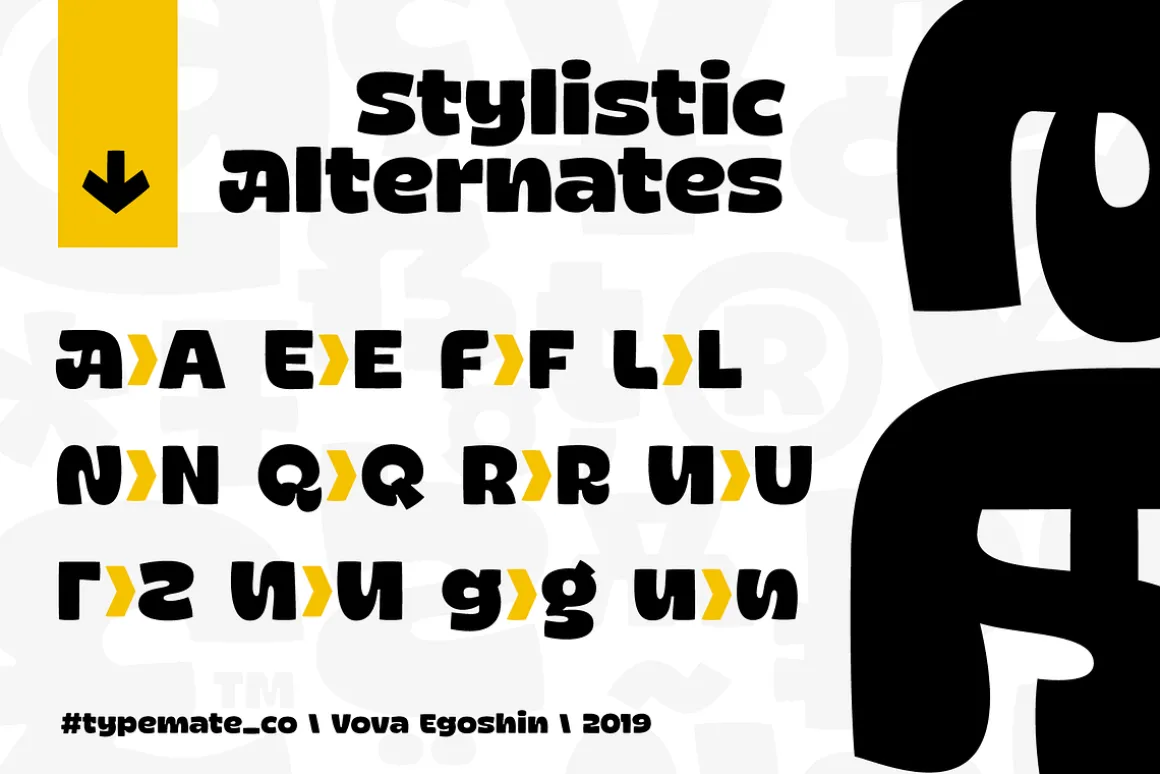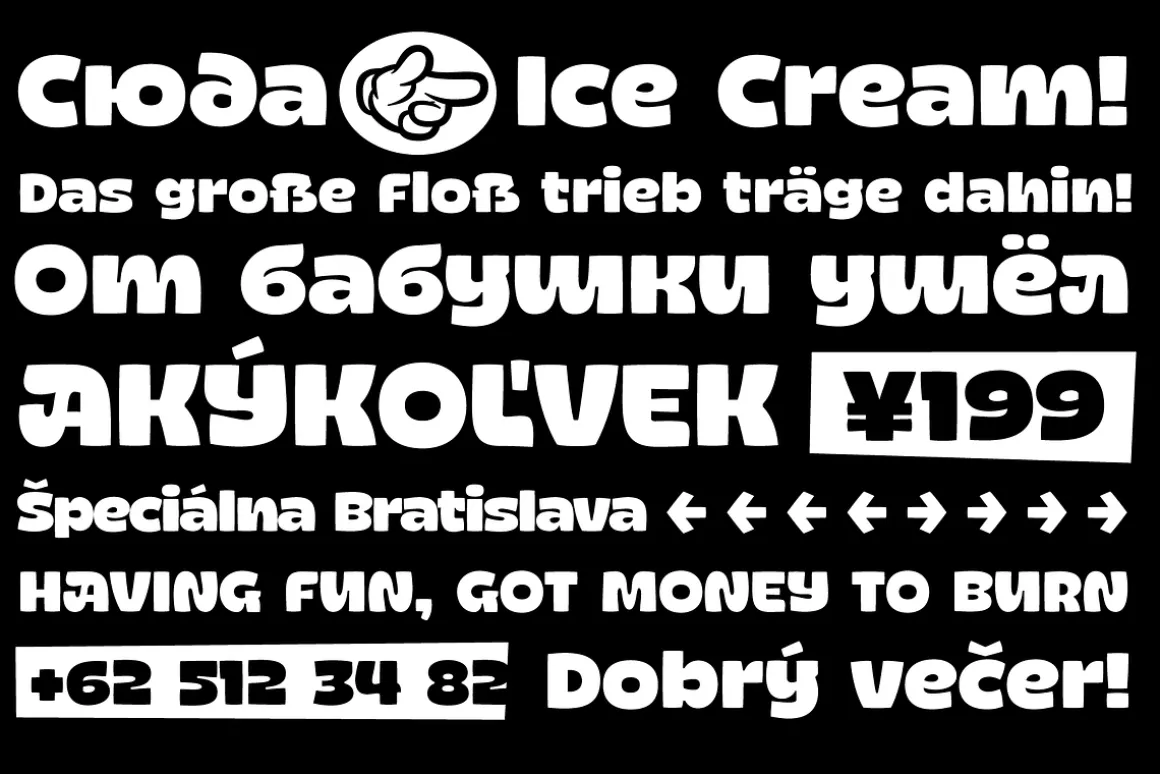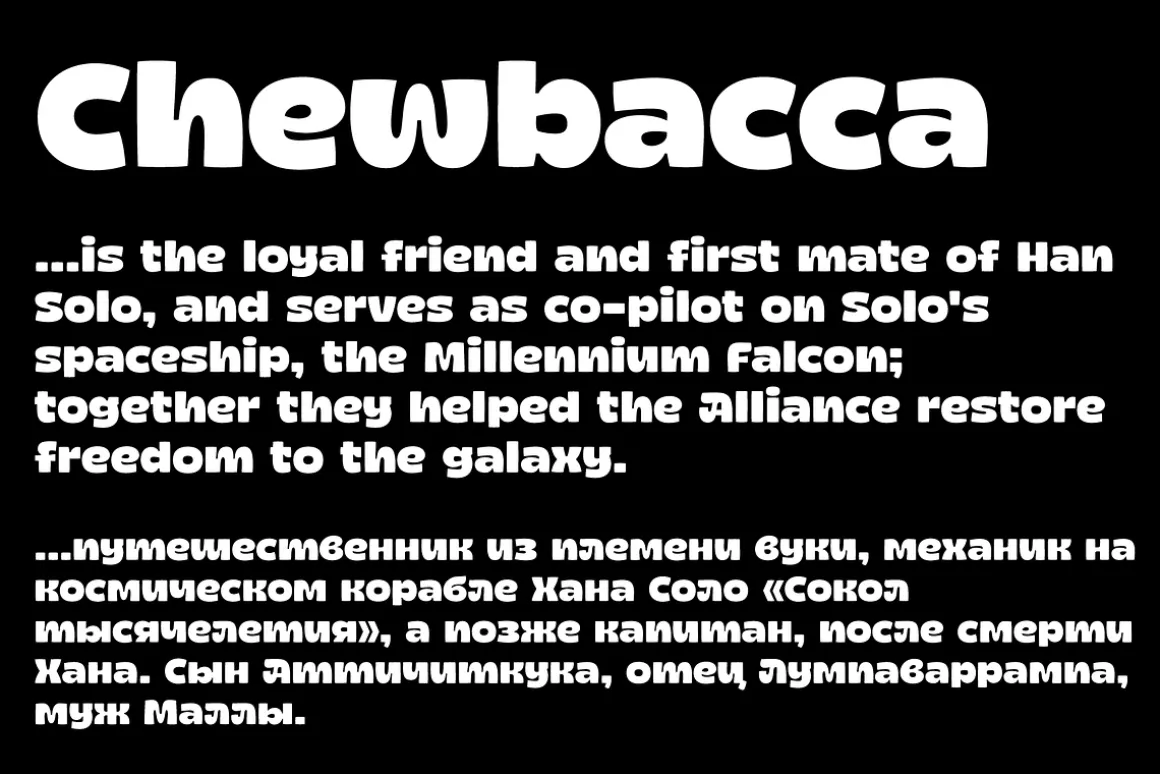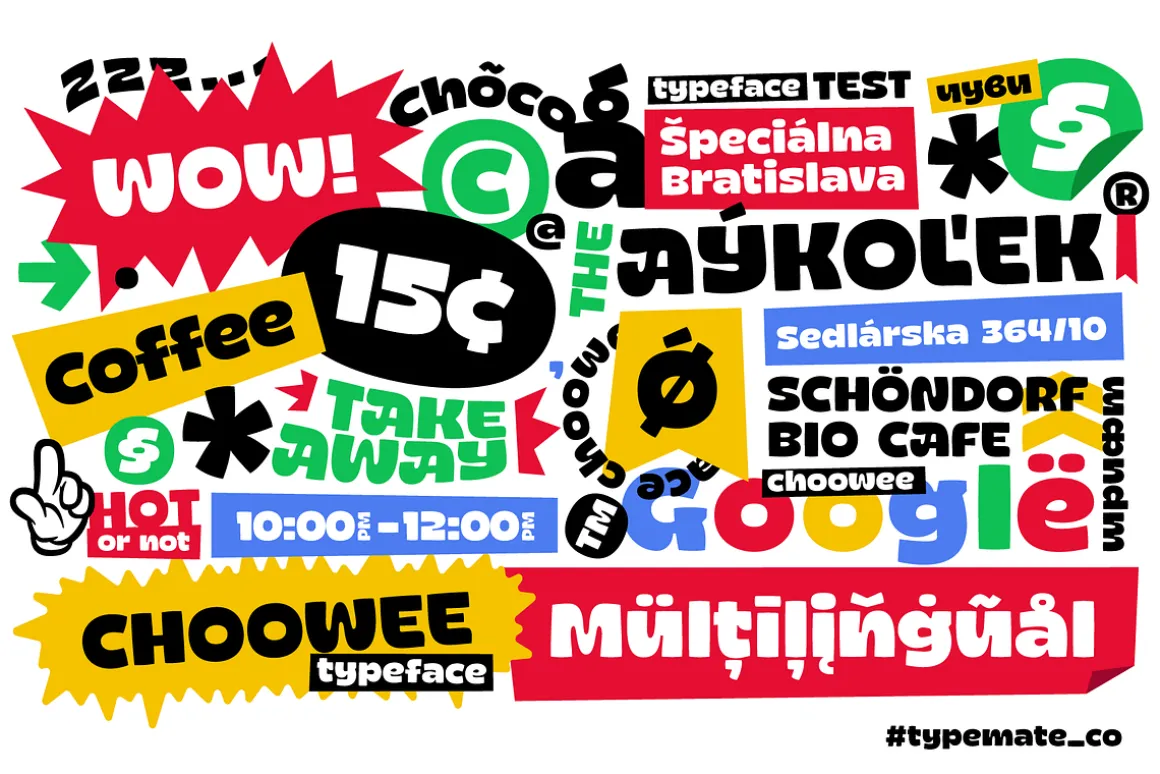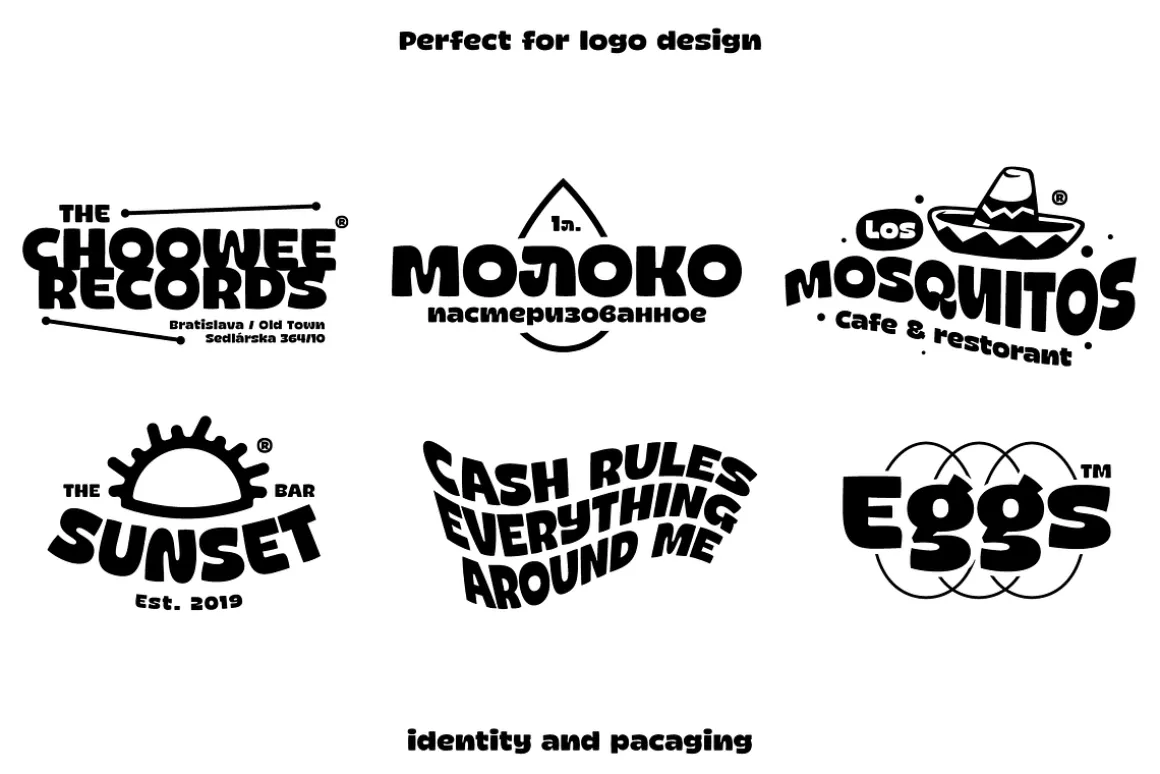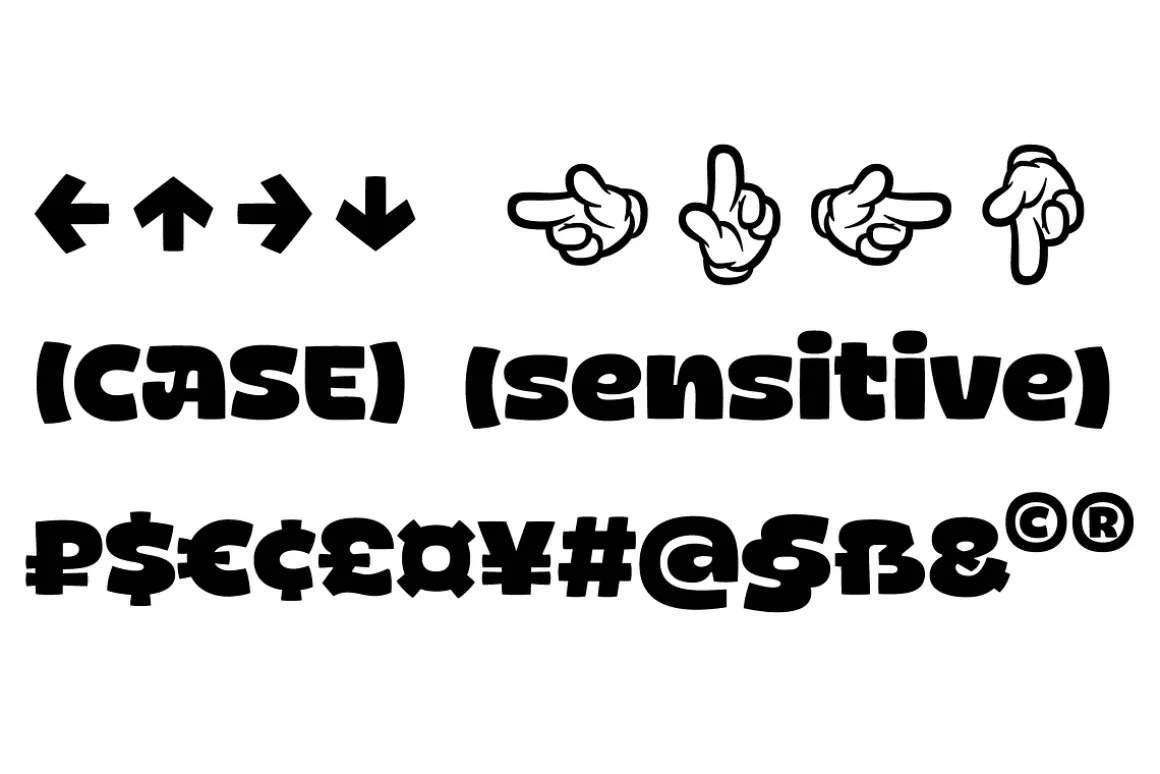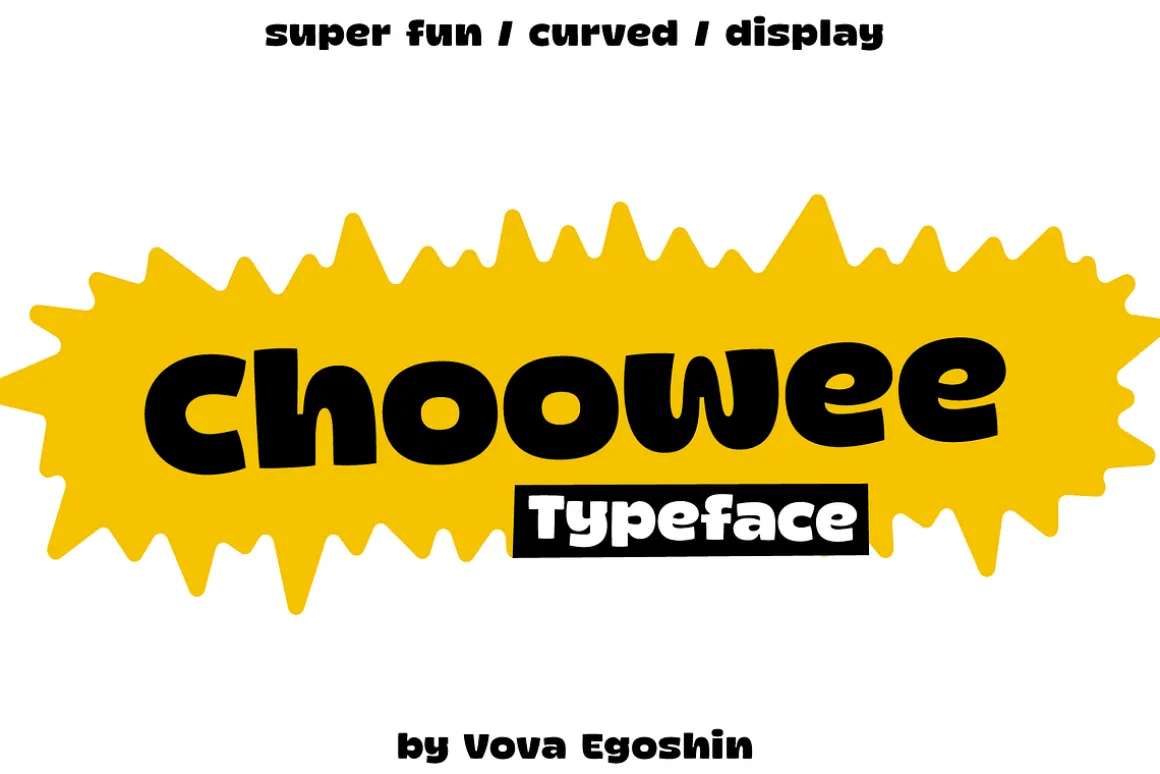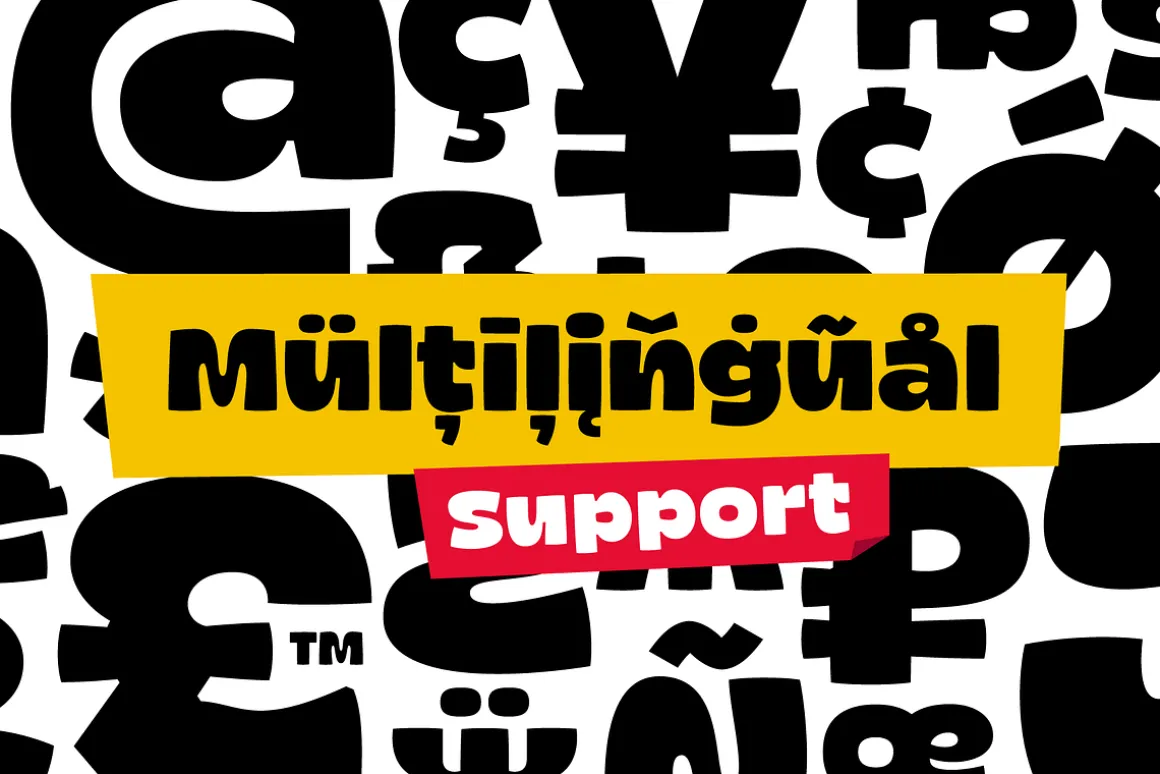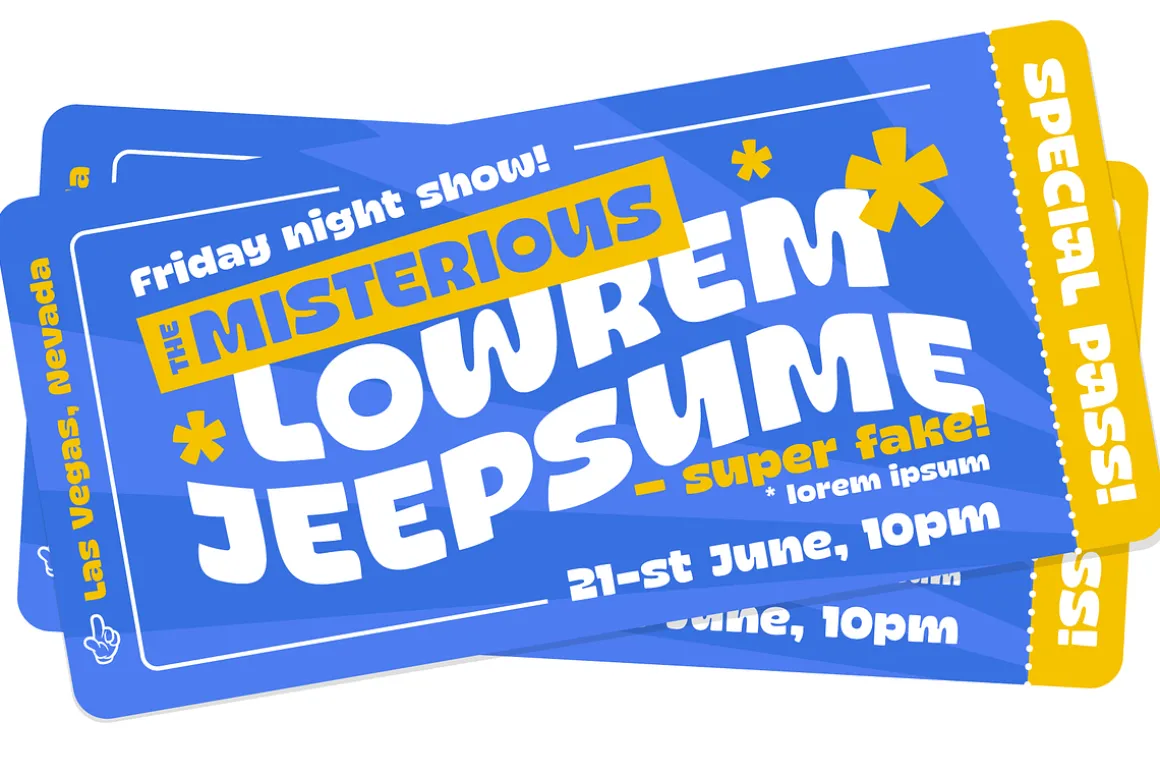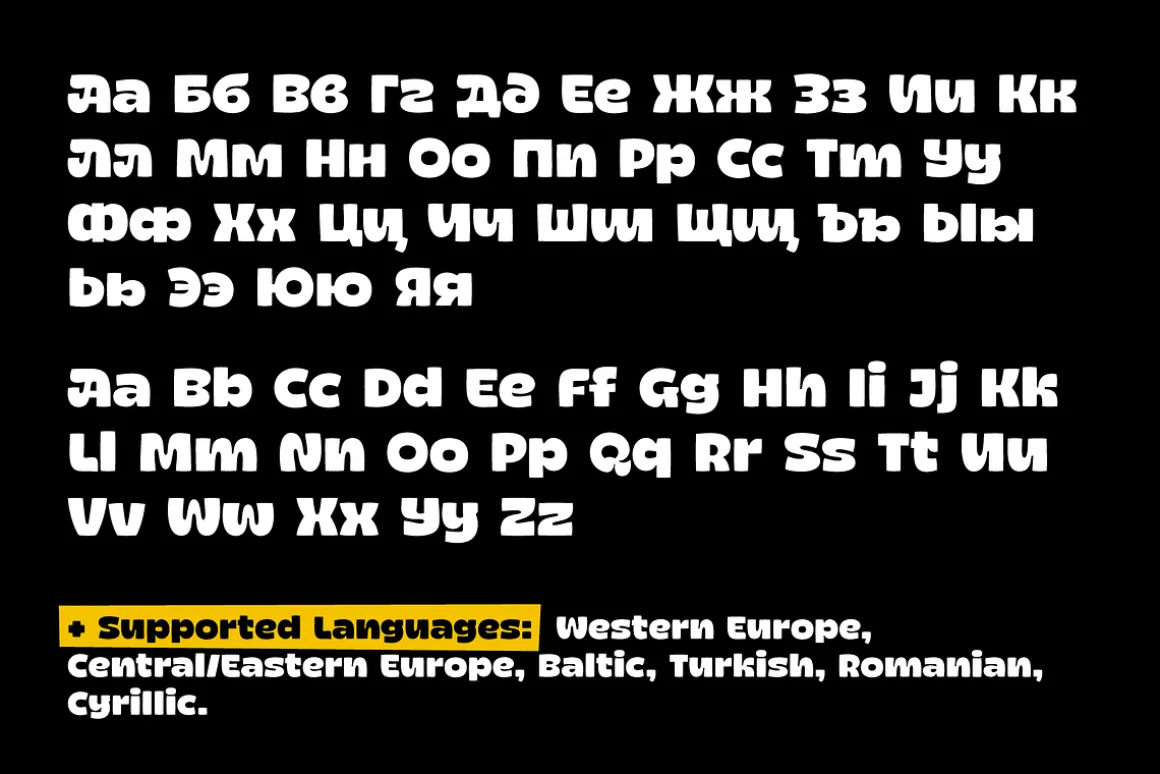
Unique funky decorative typeface with a curvy eye catching characters.
Choowee looks pretty cool in logos and packaging, in mobile games, on the covers of children’s books, in cafes, on t-shirt prints, on postcards, invitations, etc..
Supported Languages: Western Europe, Central/Eastern Europe, Baltic, Turkish, Romanian, Cyrillic.Features: ligatures, alternates, case sensitive punctuation.
OT Features and alternates add personality and let you solve any design tasks.